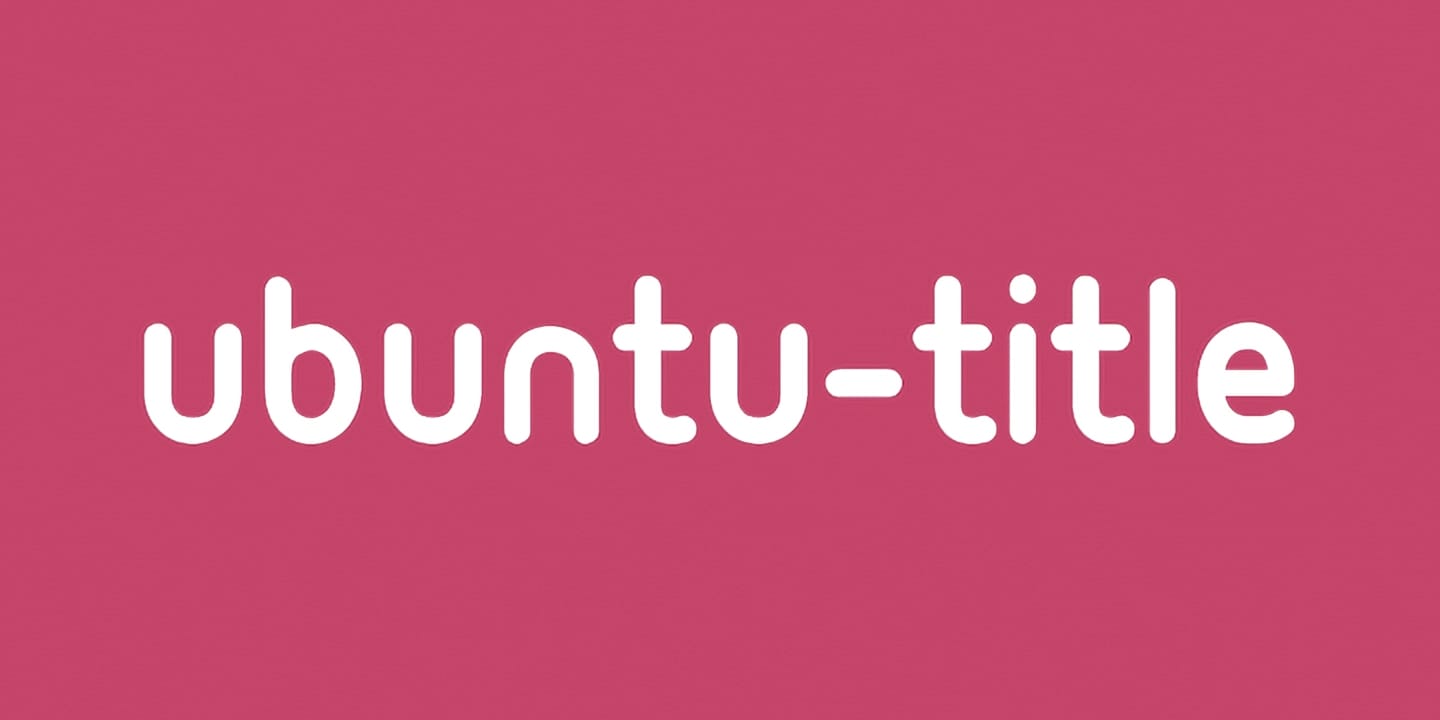
If you are on the lookout for a clean and modern typeface, the Ubuntu Title font family is worth considering. This font offers a unique blend of simplicity and sophistication, making it suitable for a variety of design projects, from digital platforms to printed materials.
Its geometric shapes and balanced proportions create a visually appealing aesthetic that maintains readability across different sizes. Whether you’re designing a logo, creating an engaging website, or putting together marketing materials, Ubuntu Title can help enhance your visual communication.
The font family includes several weights, giving you flexibility in your design choices. Overall, incorporating Ubuntu Title can provide a contemporary touch while ensuring clarity, making it a valuable addition to your typography toolkit.